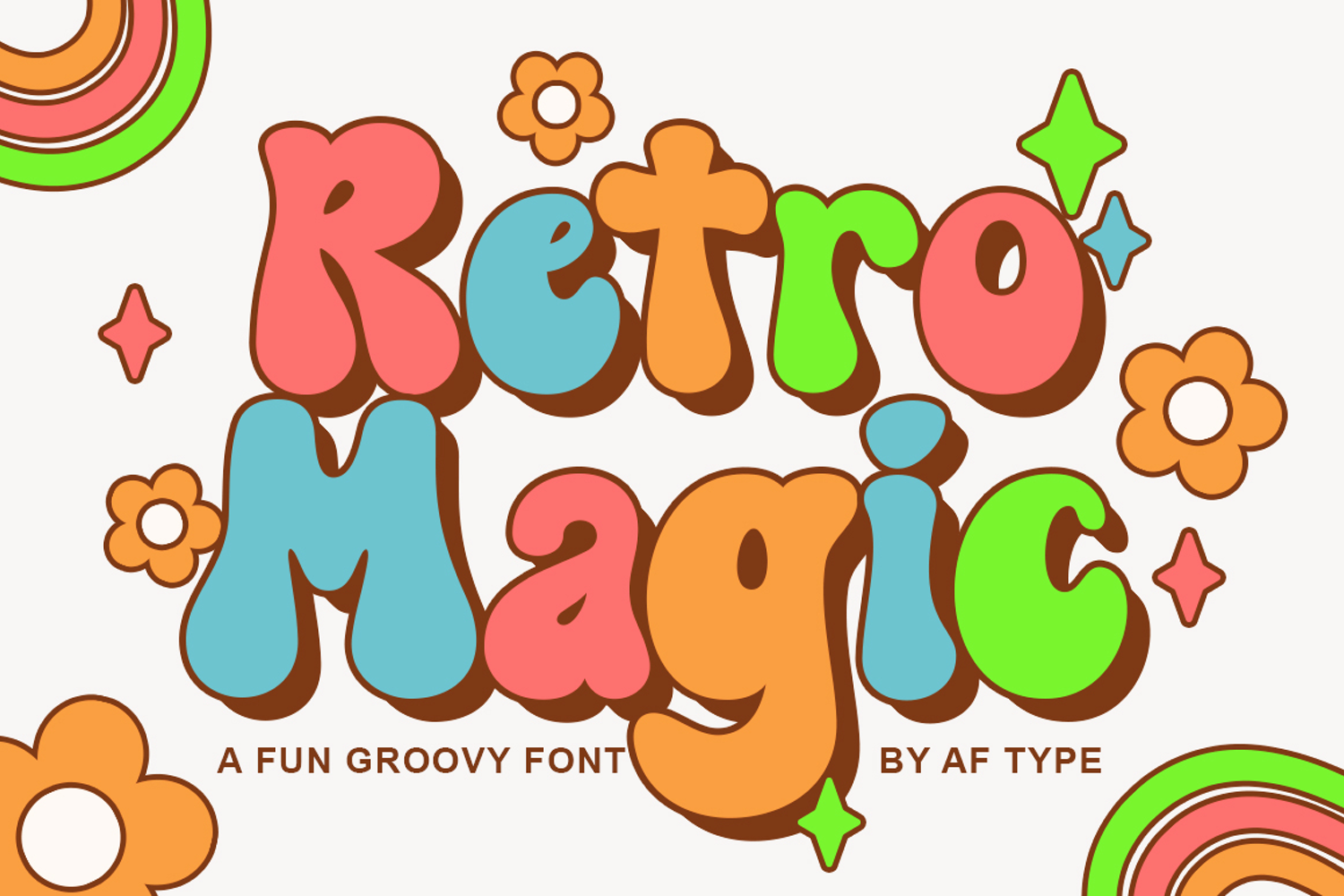
Created By AF Type
Retro Magic
Retro Magic is a handwritten font featuring exquisite character changes, a kind of classic decorative copperplate script with a modern twist, meticulously designed for an elegant style.
Retro Magic is appealing because it is smooth, clean, feminine, sensual, glamorous, simple, and highly legible, thanks to its many luxurious letter connections. This classic style is perfect for various formal applications such as invitations, labels, restaurant menus, logos, fashion, makeup, stationery, novels, magazines, books, greeting/wedding cards, packaging, labels, or any type of advertising needs. . . . . .